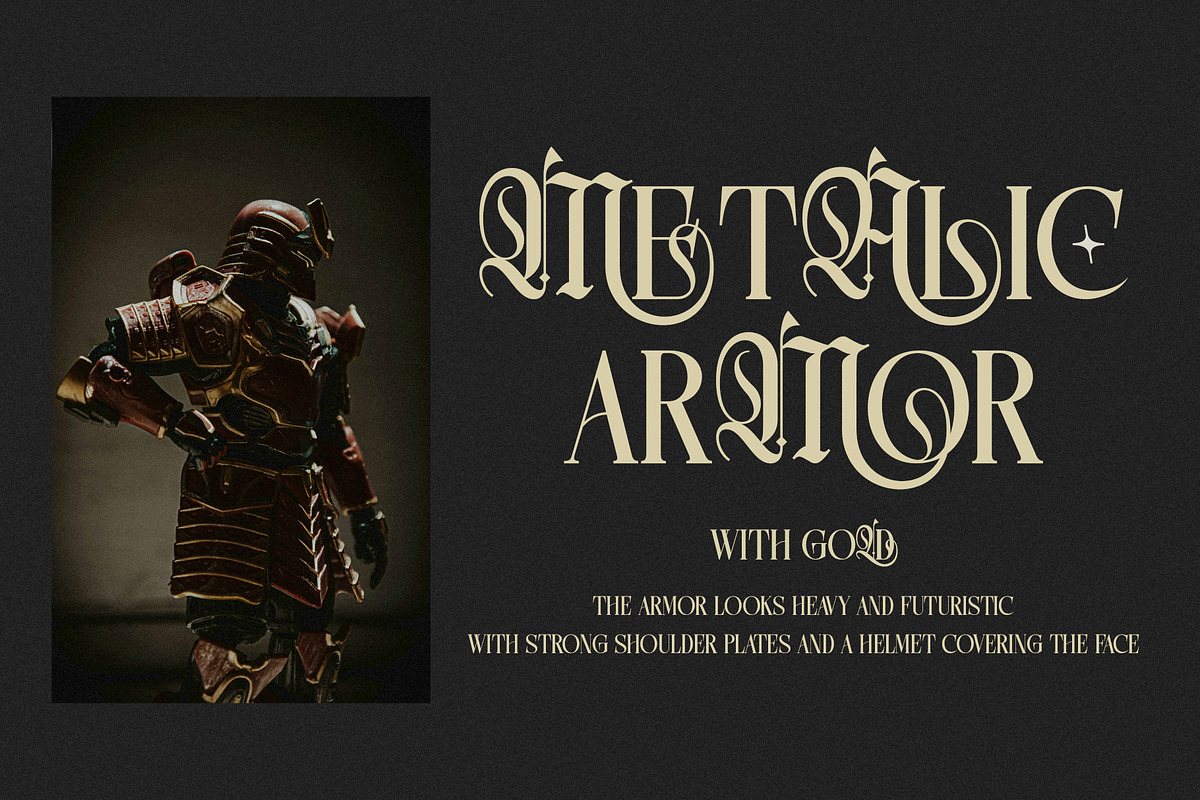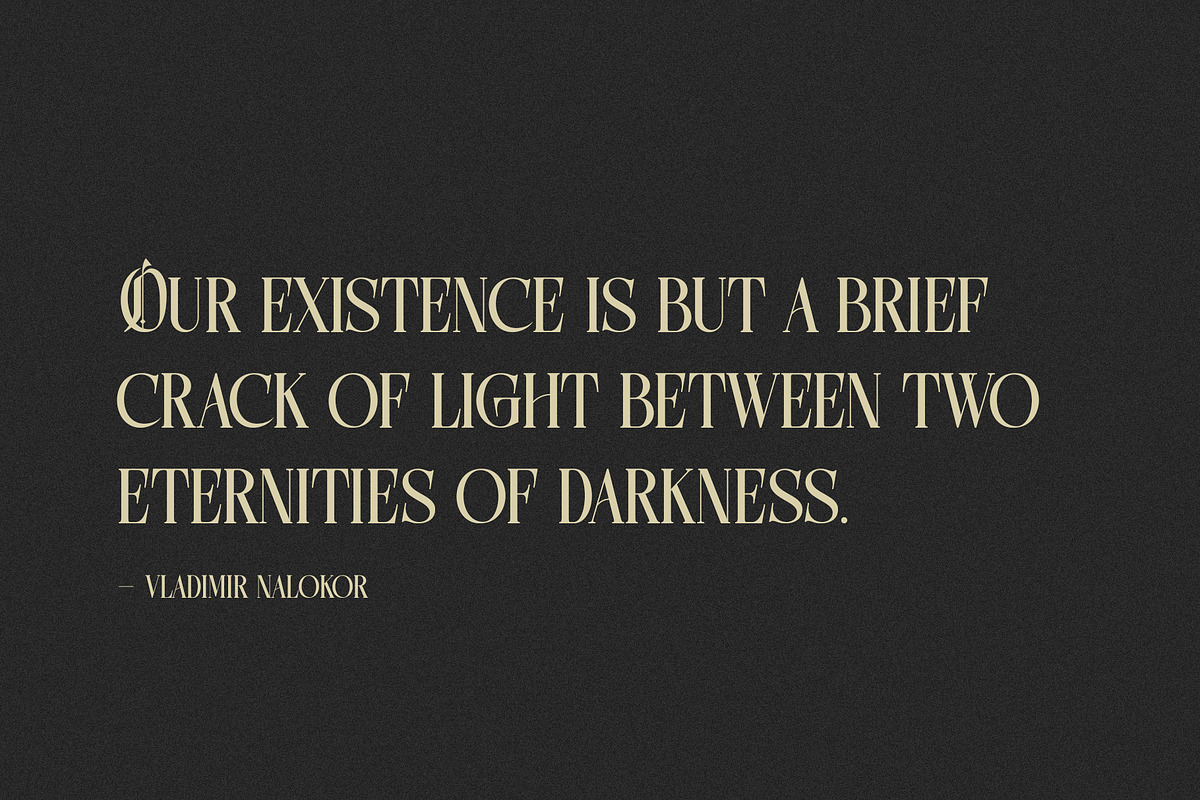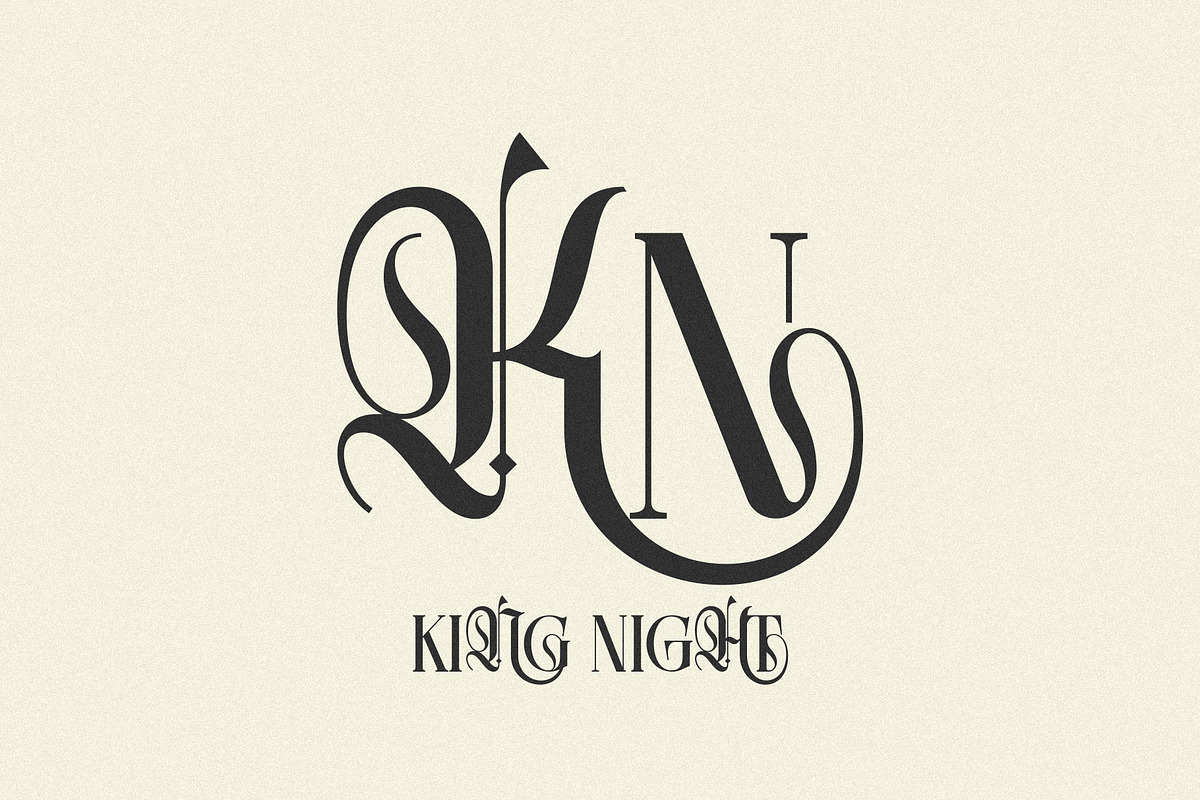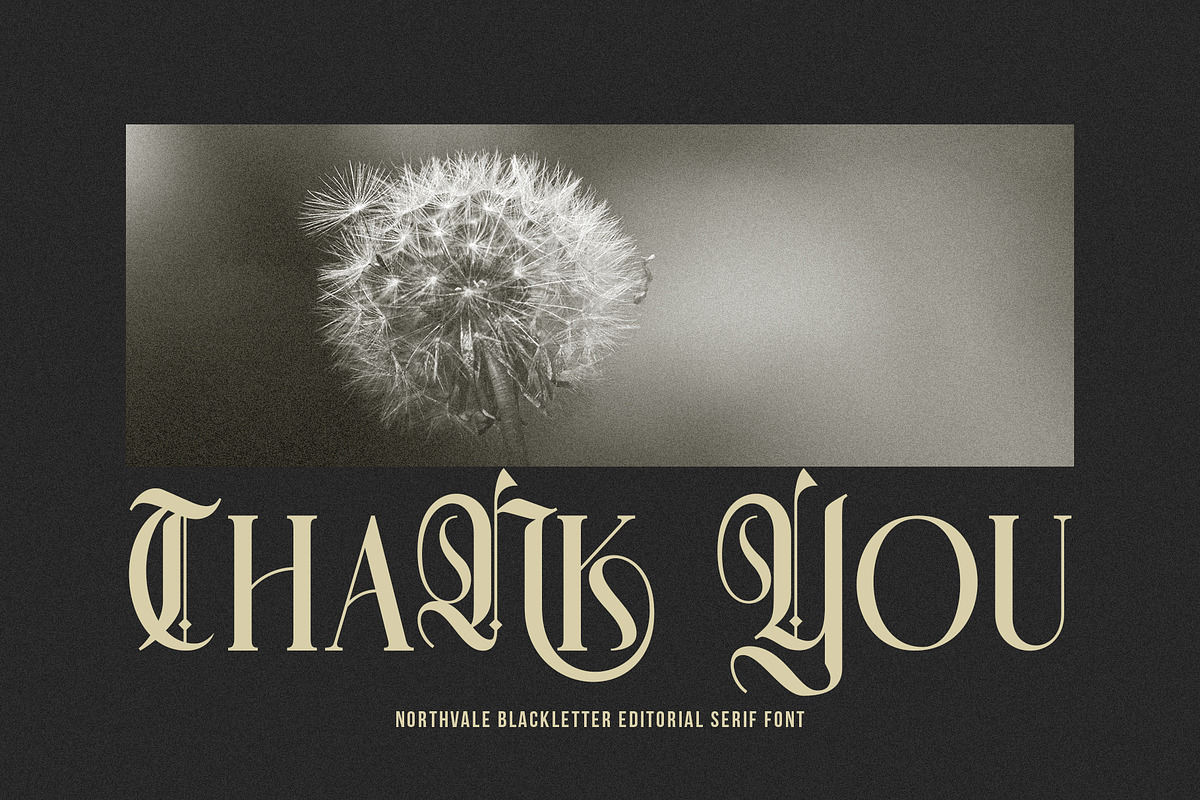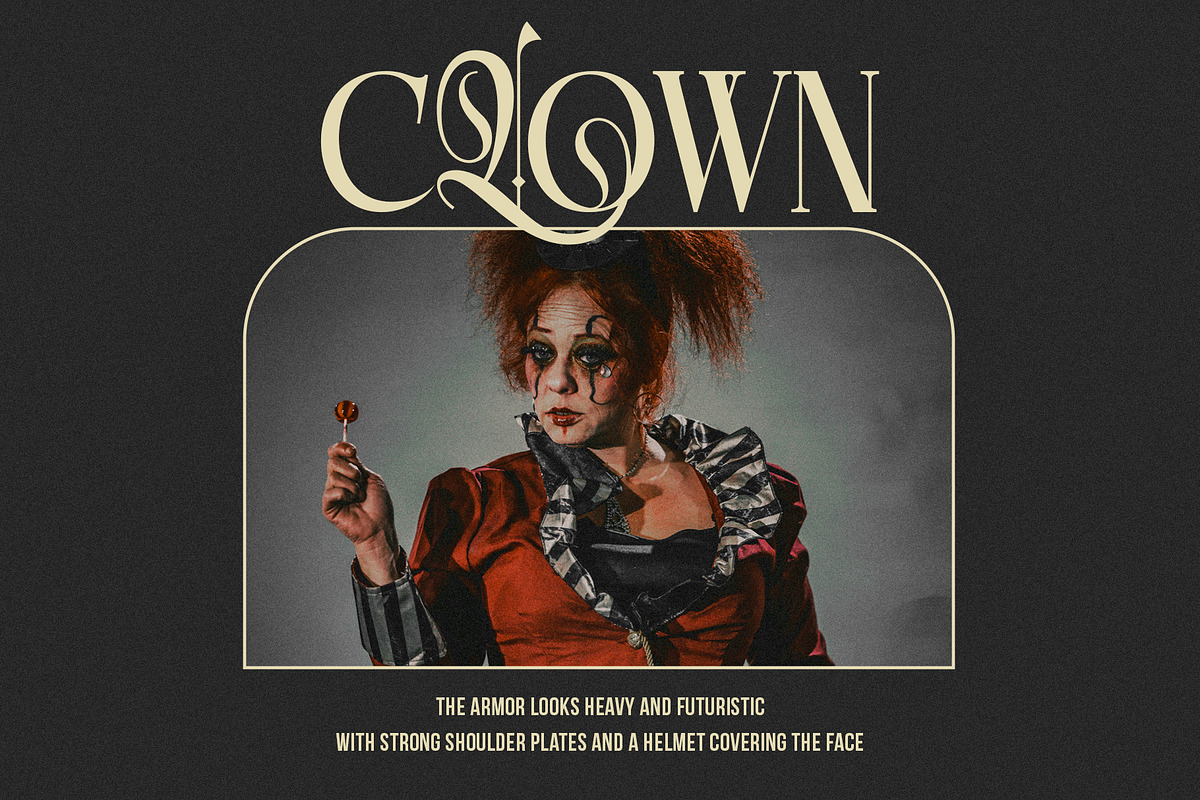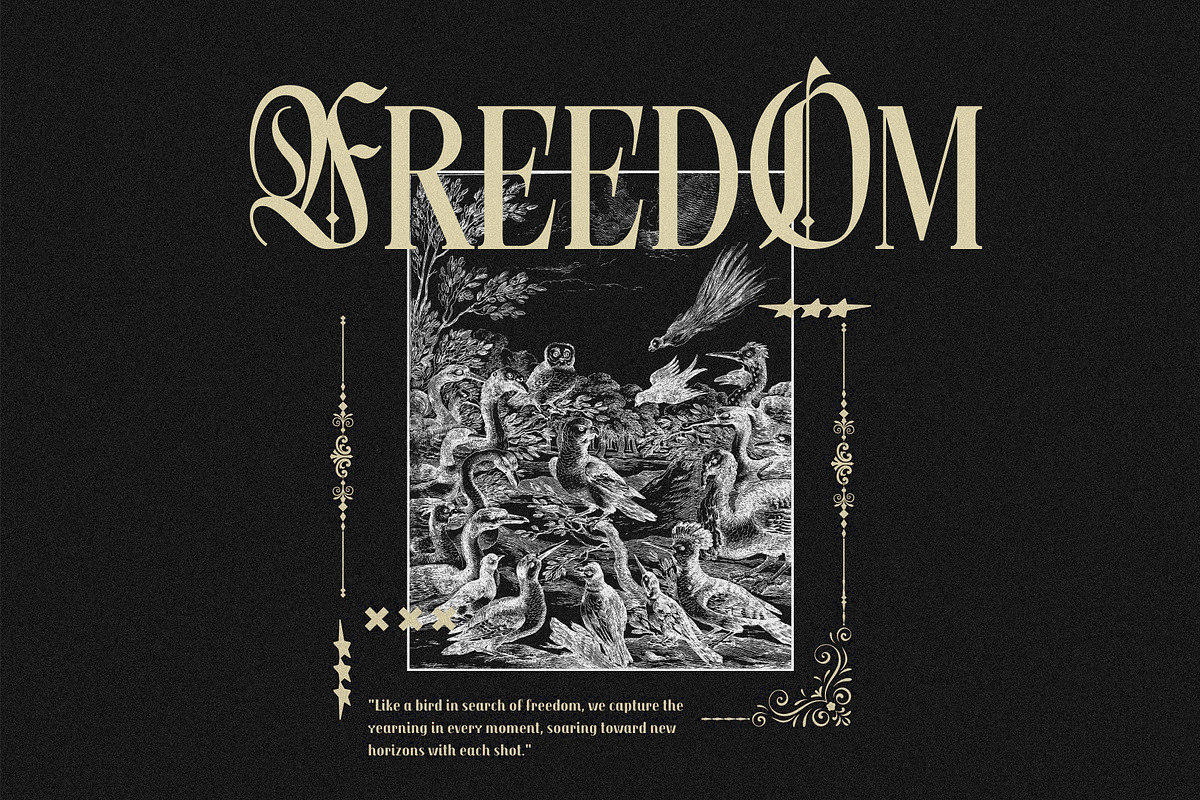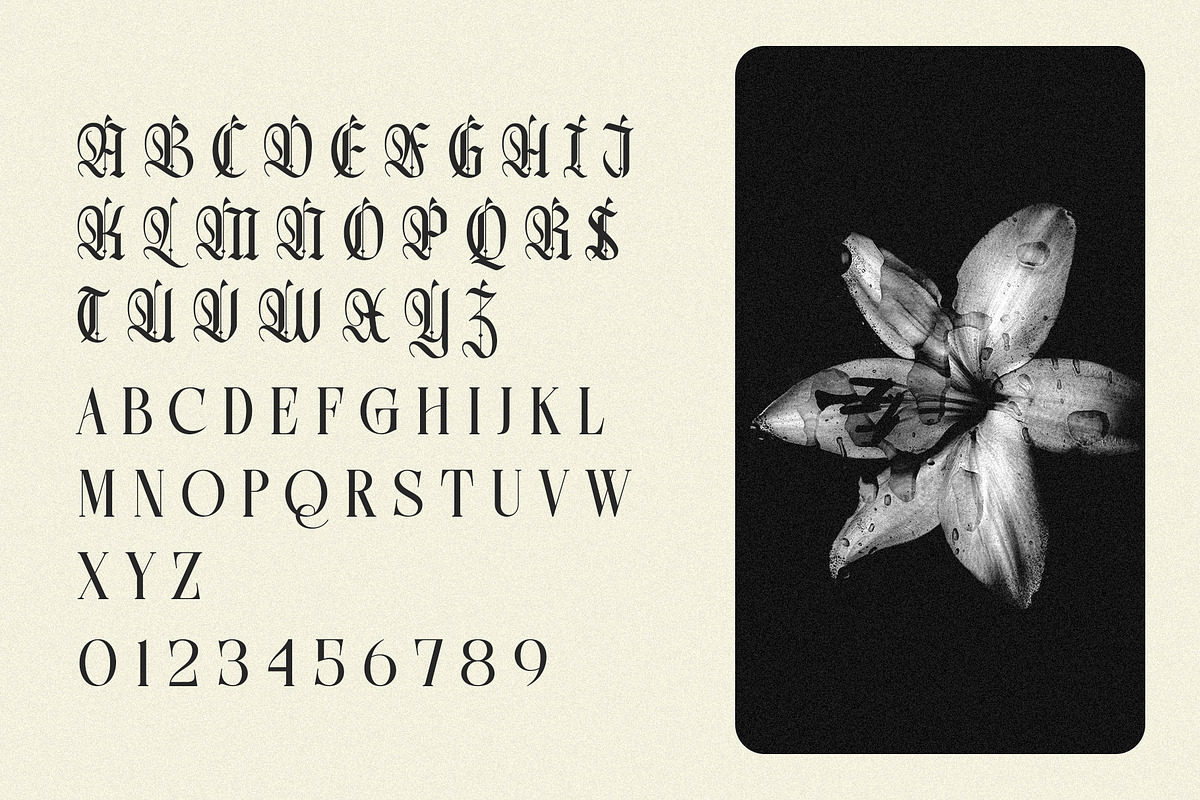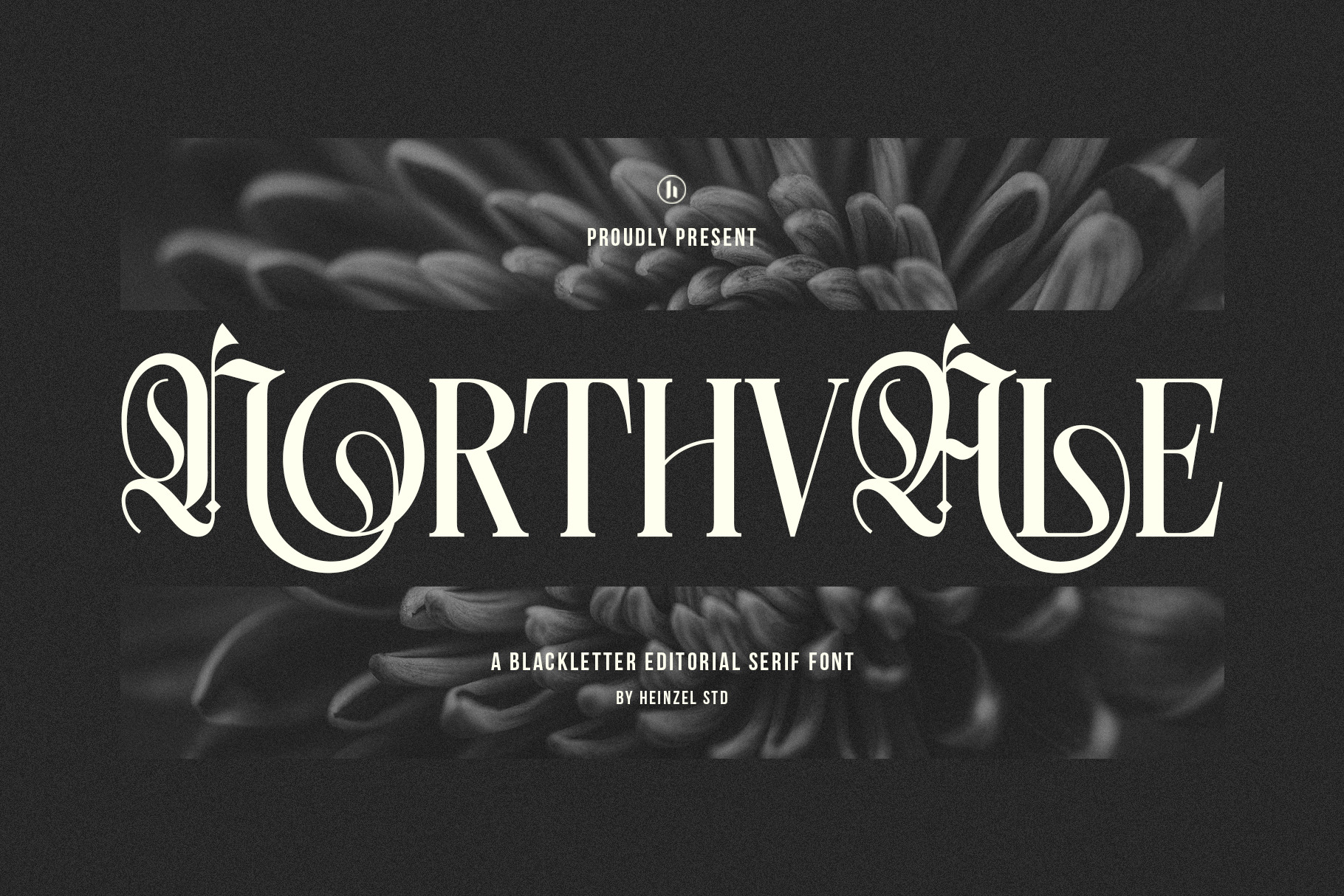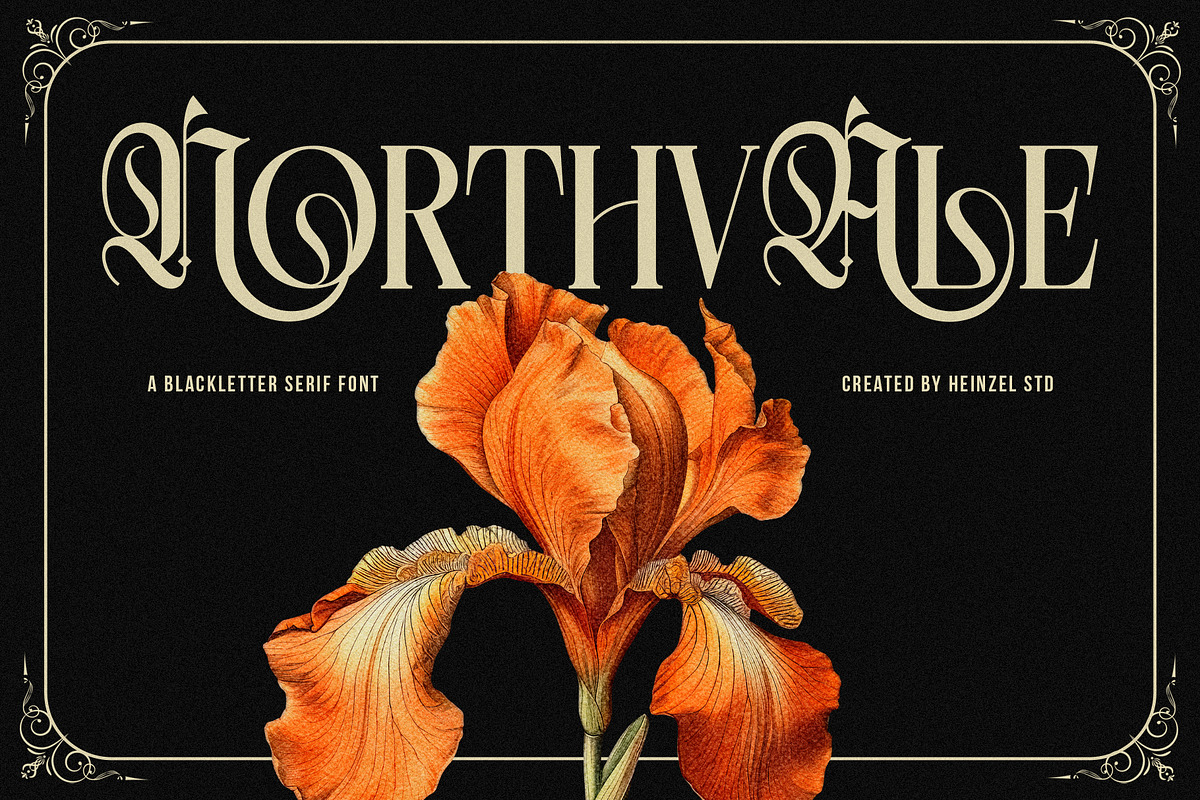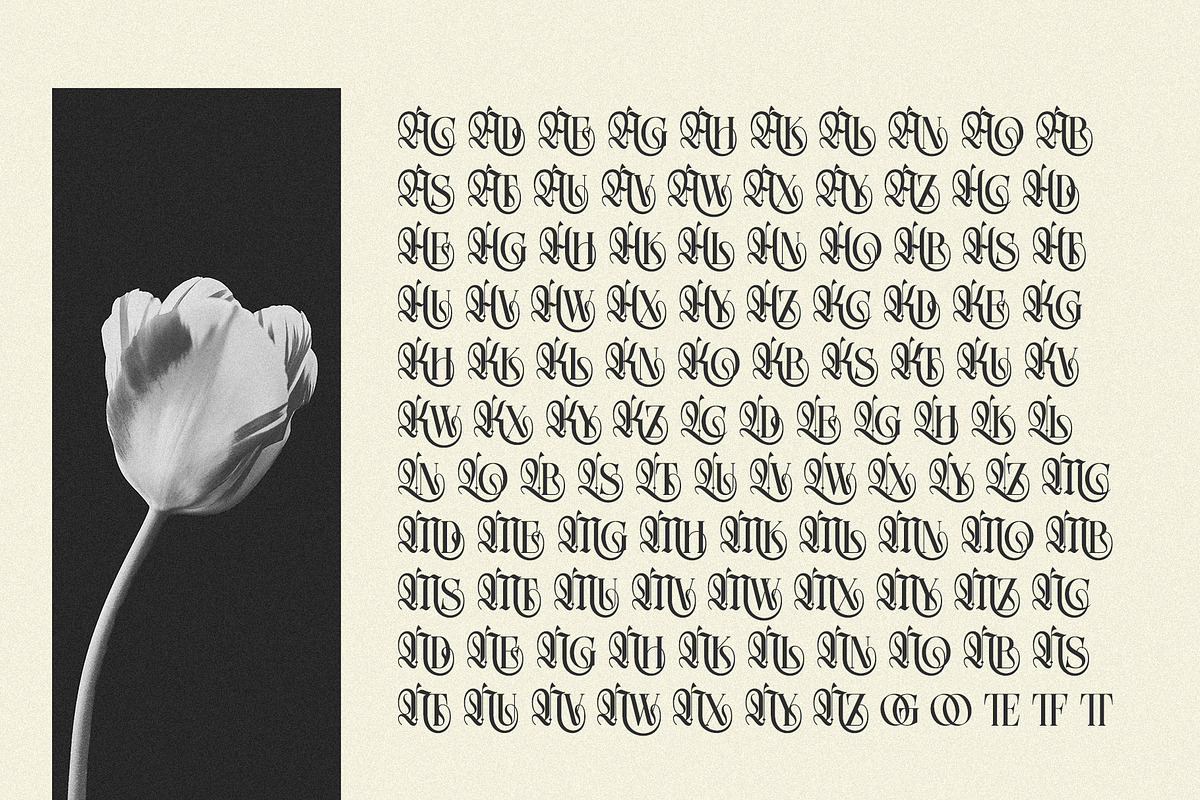
Northvale Blackletter Serif Font
Northvale is a blackletter editorial serif font that blends classic Gothic elegance with refined modern sophistication. Designed with dramatic curves, sharp serifs, and ornamental swashes, Northvale creates a powerful visual statement while maintaining readability and balance.
Inspired by traditional blackletter forms yet crafted for contemporary design needs, this typeface is perfect for luxury branding, editorial layouts, book covers, logos, posters, packaging, and high-end typography projects. Its distinctive letterforms, decorative alternates, and stylish ligatures allow designers to create striking headlines and memorable brand identities with ease.
Northvale delivers a timeless aesthetic with a modern editorial twist—making it ideal for designers who want to combine heritage character with bold sophistication.